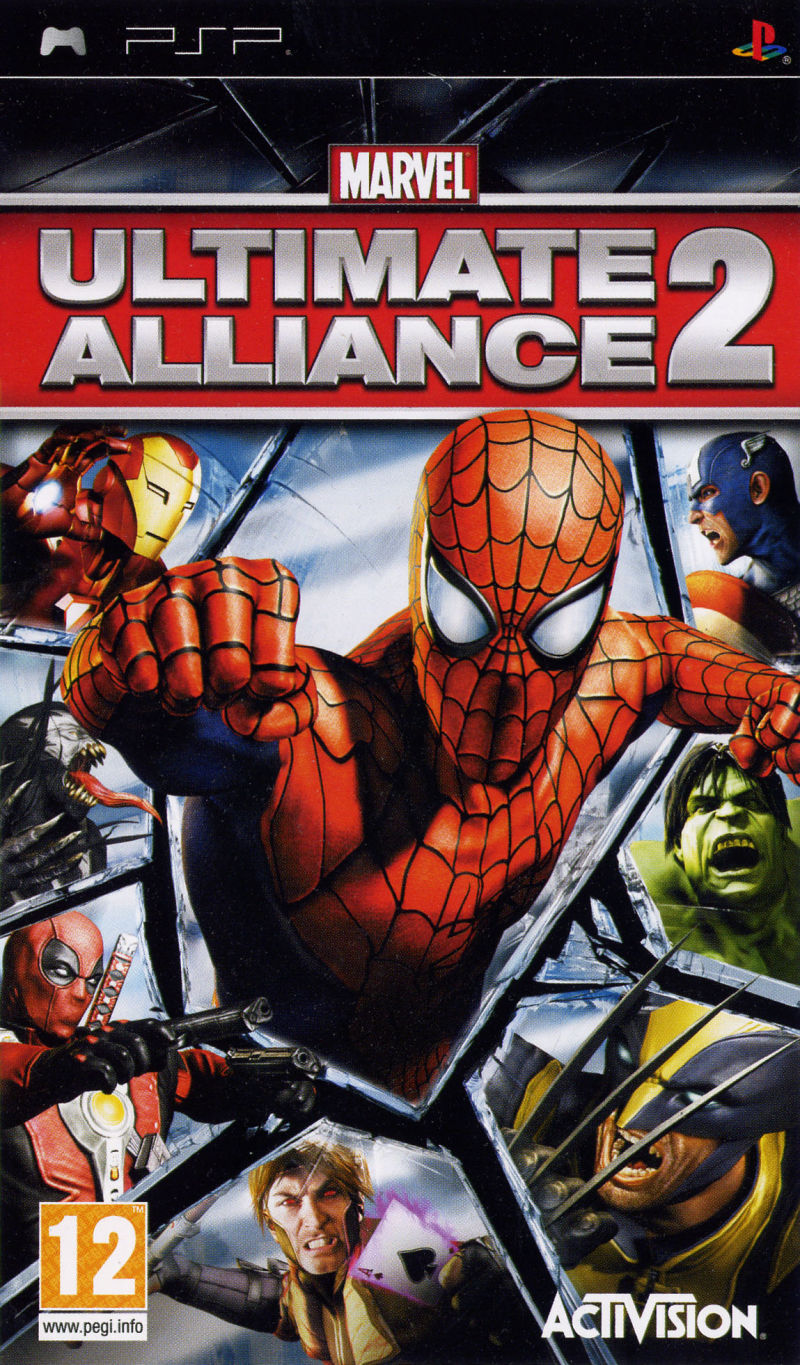
Marvel: Ultimate Alliance Font
ActionMarvel: Ultimate Alliance is an action role-playing game developed by Raven Software and published by Activision. The game allows players to create a team of up to four Marvel superheroes and embark on a mission to save the world from a variety of villains.
The game box art features the game title in Impact, a sans-serif font designed by Geoffrey Lee in 1965 and released by the Stephenson Blake foundry of Sheffield.